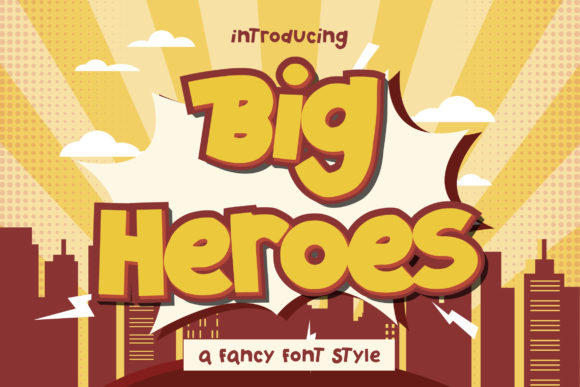
The Big Heroes Font: A Playful and Friendly Display Font for Your Creative Projects
I’ll never forget the time I was working on a project for a children’s book, and I was struggling to find the perfect font. The client wanted something playful, friendly, and engaging, but I just couldn’t seem to find the right fit. That’s when I stumbled upon the Big Heroes font, and it was love at first sight! 💕
Big Heroes is a display font that is perfect for cartoon-related designs, children’s games, or any creation that requires a lovely touch. In this article, I’ll share my honest review of the font, provide a practical guide on how to use it, and explore similar fonts and alternatives.
Honest Review: What I Love and What I Don’t
• 🎉 Playful and friendly vibe that’s perfect for kids’ projects
• ✅ Highly legible, even at smaller sizes
• 🌈 Great for titles, headings, and short paragraphs
• 💻 Works well on both digital and print platforms
• ⚠️ Limited use for body text, as it can be a bit too playful
• 🤔 Some characters may not work well in all contexts (e.g., uppercase letters)
The Story Behind Big Heroes
Big Heroes was designed by a team of creatives who wanted to create a font that would bring a smile to people’s faces. Inspired by classic cartoons and children’s books, they crafted a font that is both playful and friendly. Whether you’re working on a project for kids or just want to add a touch of whimsy to your design, Big Heroes is the perfect choice.
Font Name Big Heroes Font
Author TypeFactory
Q: Is Big Heroes suitable for body text?
A: While Big Heroes is a beautiful font, it’s not ideal for body text. Its playful and friendly vibe works best for titles, headings, and short paragraphs.
Q: Does Big Heroes have OpenType features?
A: Yes, Big Heroes has a range of OpenType features, including glyphs, stylistic alternates, and ligatures. These features allow you to customize the font to fit your design.